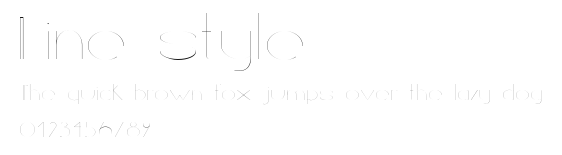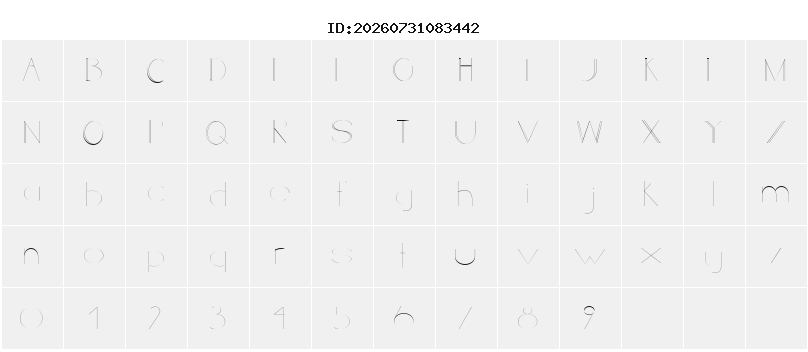
Line style.ttf is a modern, elegant sans-serif font designed for ultimate readability and visual harmony. Perfect for branding, headlines, web design, and print materials.